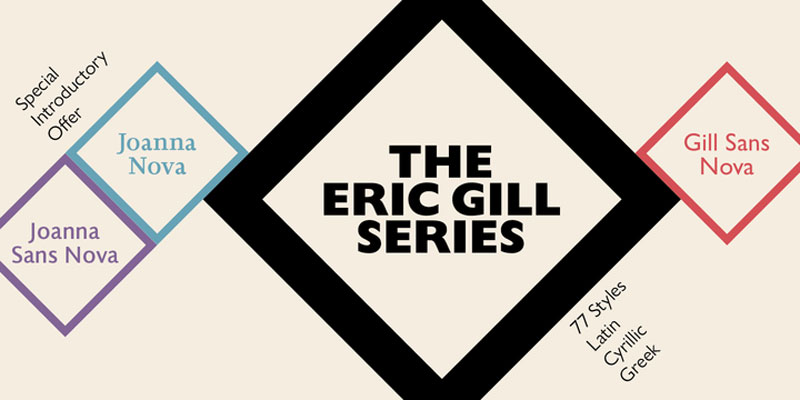
If you don’t visit or are not subscribed to our sister blog, Typography Daily, you just missed a major announcement in the world of type: the launch of the Eric Gill Series. Like Helvetica for Switzerland, Gill Sans is a typeface that is tightly attached to the history of a country, one of the many reasons that make it appear everywhere, even in history books. Check out the article on Typography Daily to know more about the redesign.